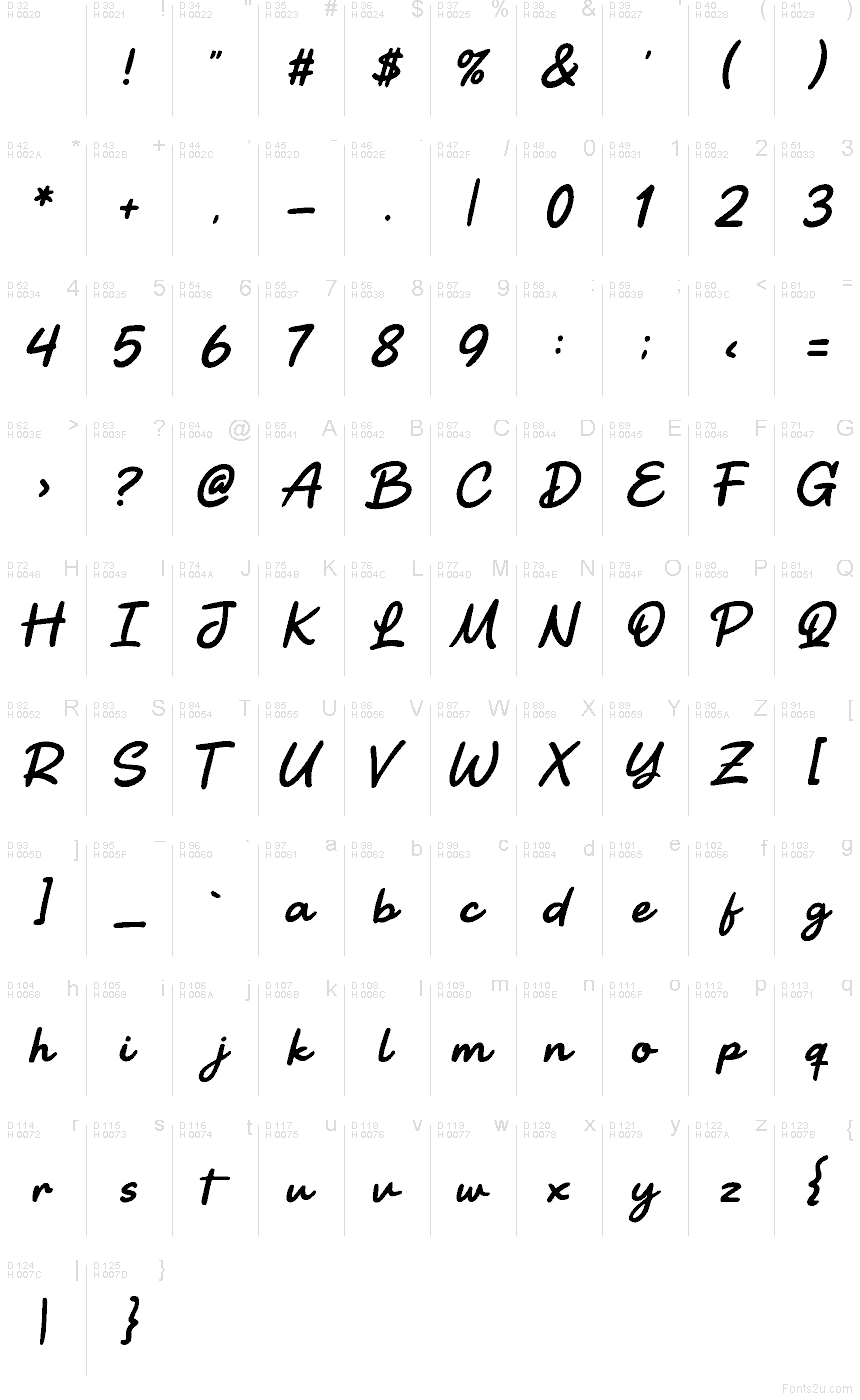
La Marmelade aux Fruits
La Marmelade aux Fruits font by BlackFridayFont FMF is a free handwritten script font that feels like it was brushed onto a café chalkboard in one confident sweep. Its smooth, slightly tilted strokes and juicy curves give words a friendly, artisanal flavor, without slipping into messy or childish. Letters link together in an easy rhythm, so even longer phrases feel like a single, flowing gesture.
This free font shines on food packaging, recipe cards, farmer’s market branding, bakery logos, Instagram graphics, and cozy lifestyle blogs. Using La Marmelade aux Fruits immediately adds a homemade, small-batch warmth to headlines and short quotes. Pair it with a clean sans serif for body text, and set this script a bit larger so its soft loops and relaxed slant can breathe and stay legible.